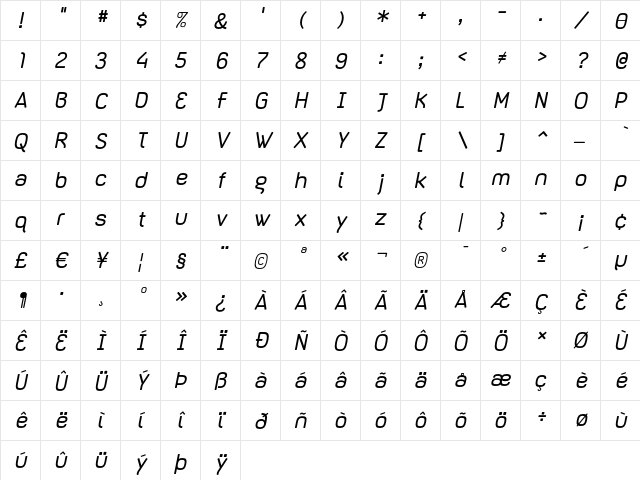
Complete Dispose Regular Oblique glyph index. Displaying only characters natively supported by Dispose Regular Oblique font.
Dispose is a composed and adaptable typeface that performs quietly and consistently across a wide range of design contexts. The slanted form adds forward momentum and visual energy.
Pro Tip: Use Dispose for emphasis, pull quotes, and subheadings where its slanted energy can add rhythm to the layout.